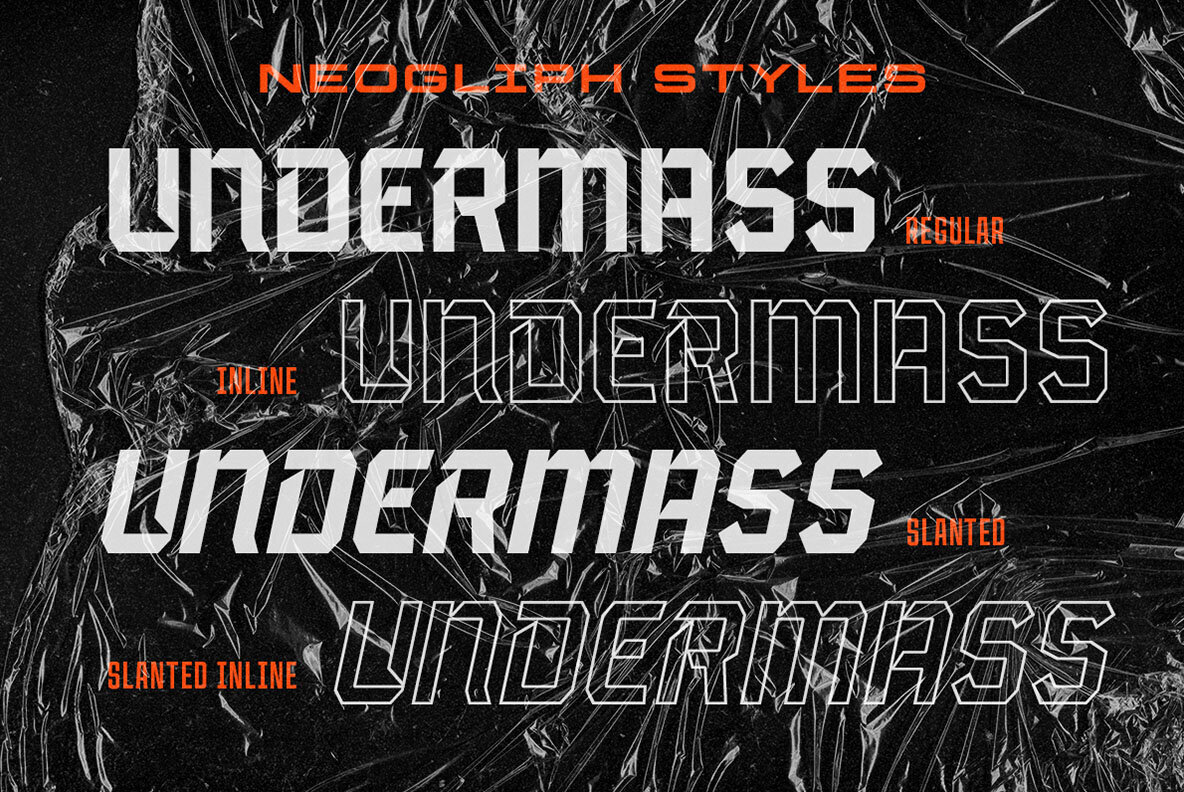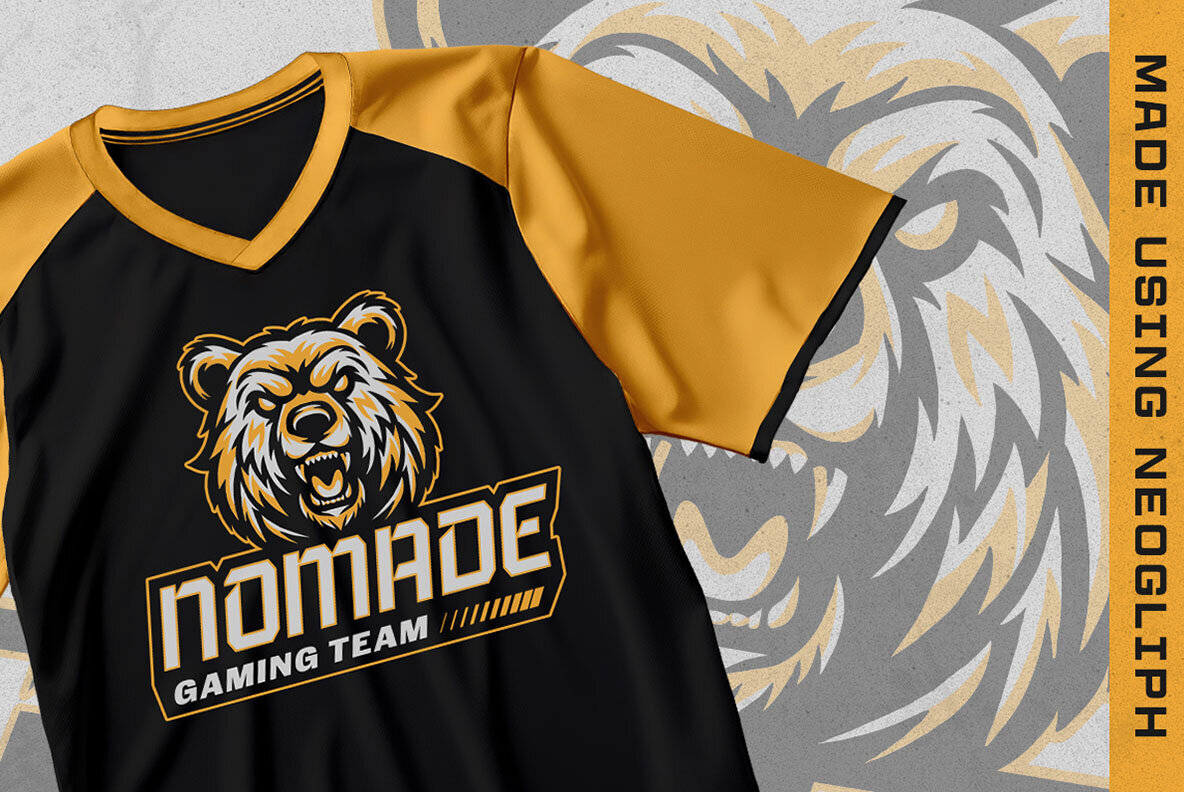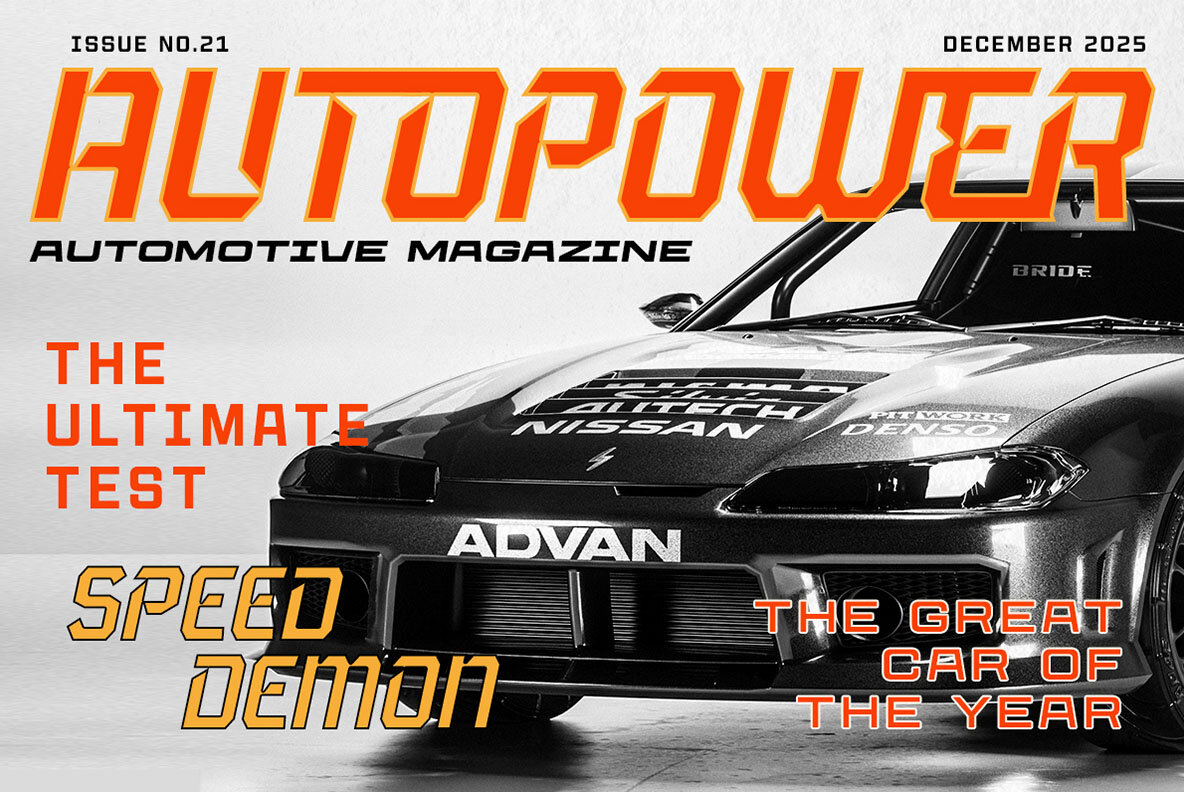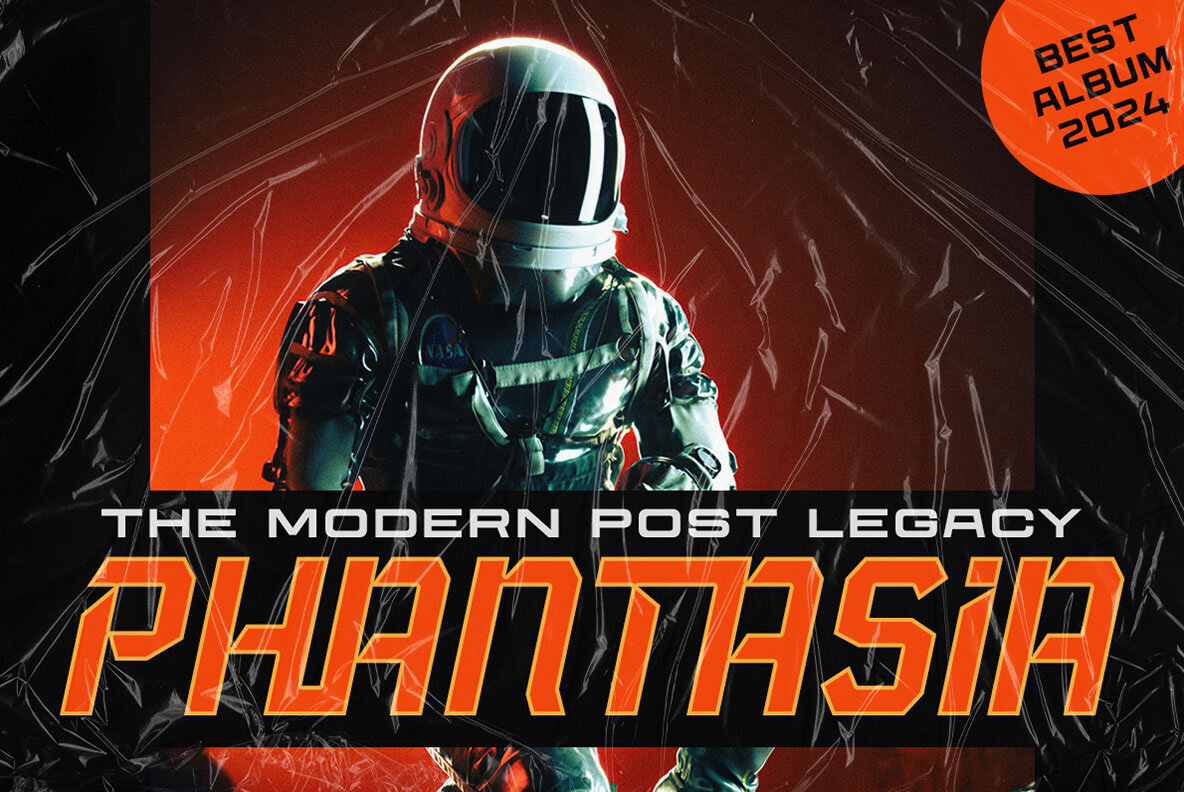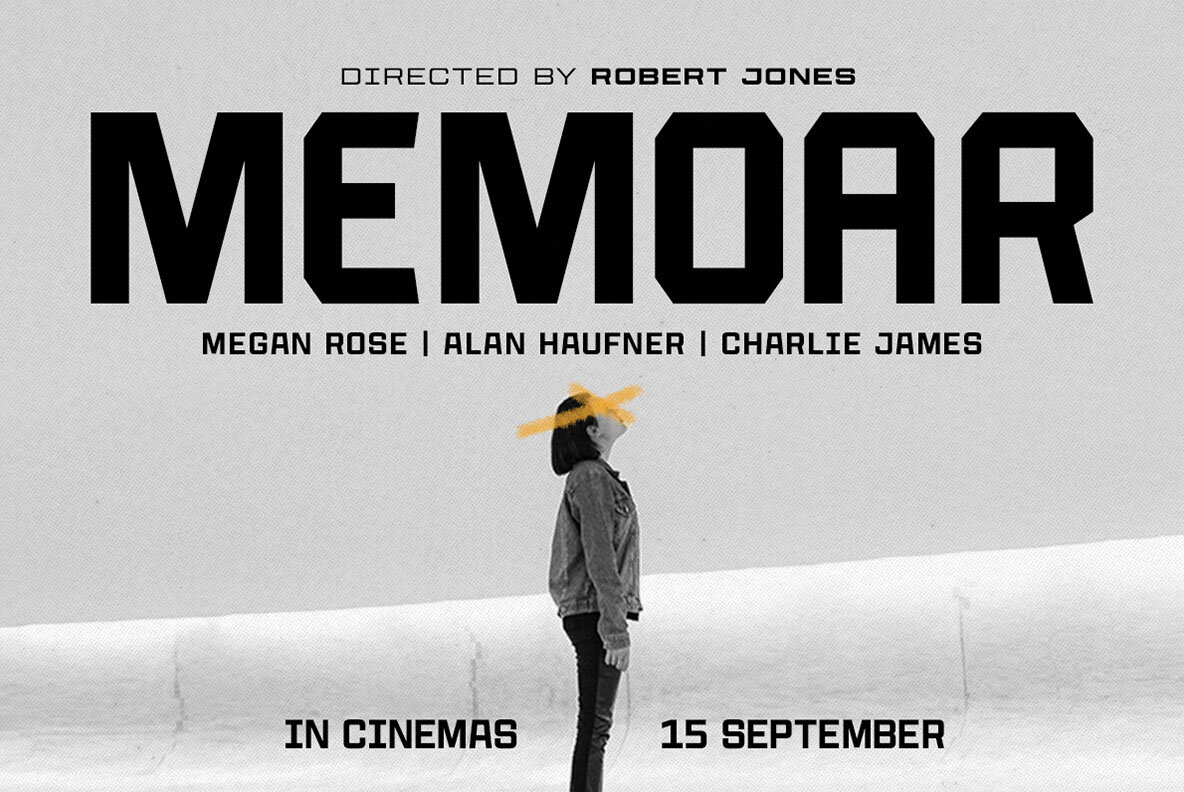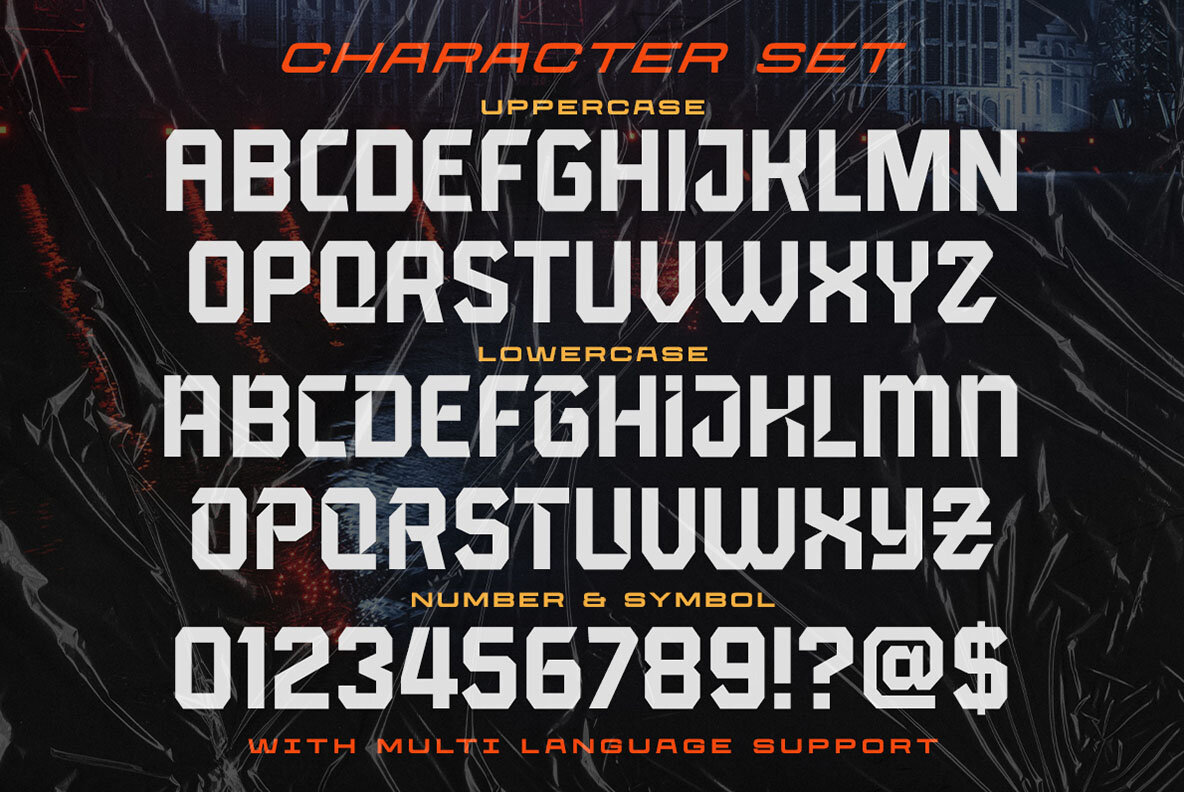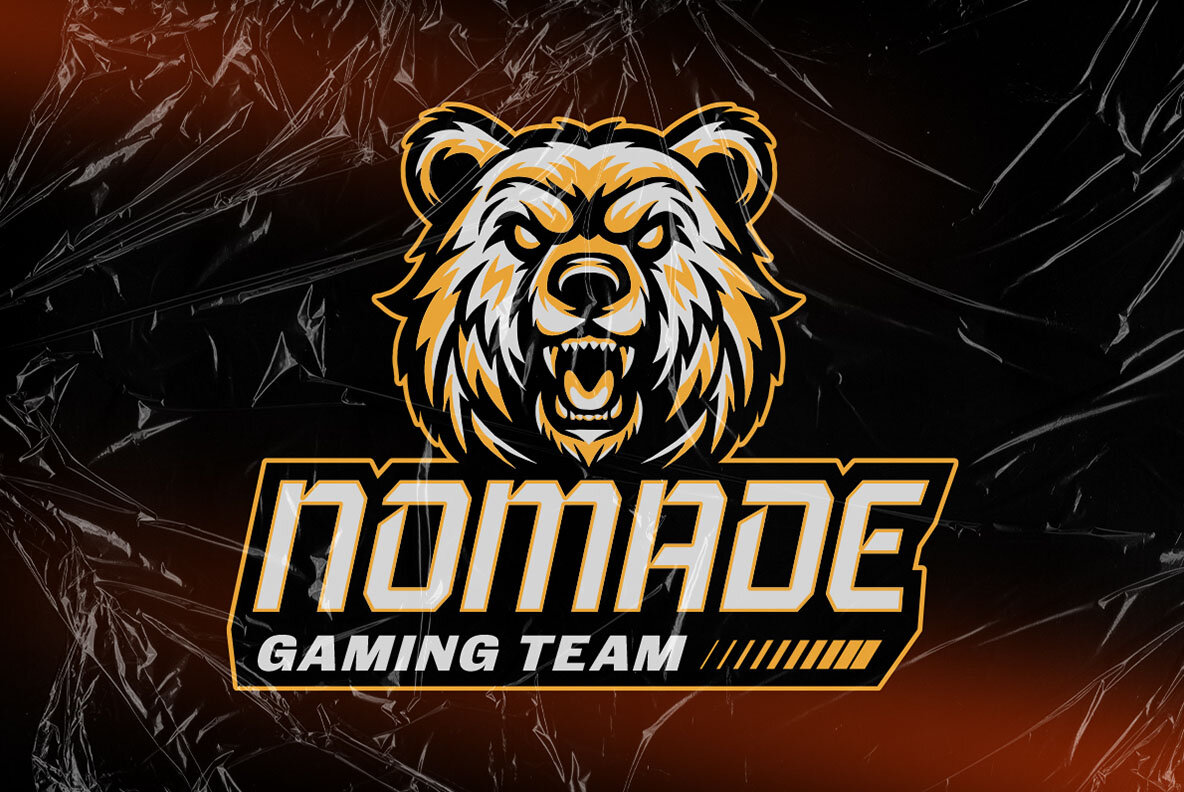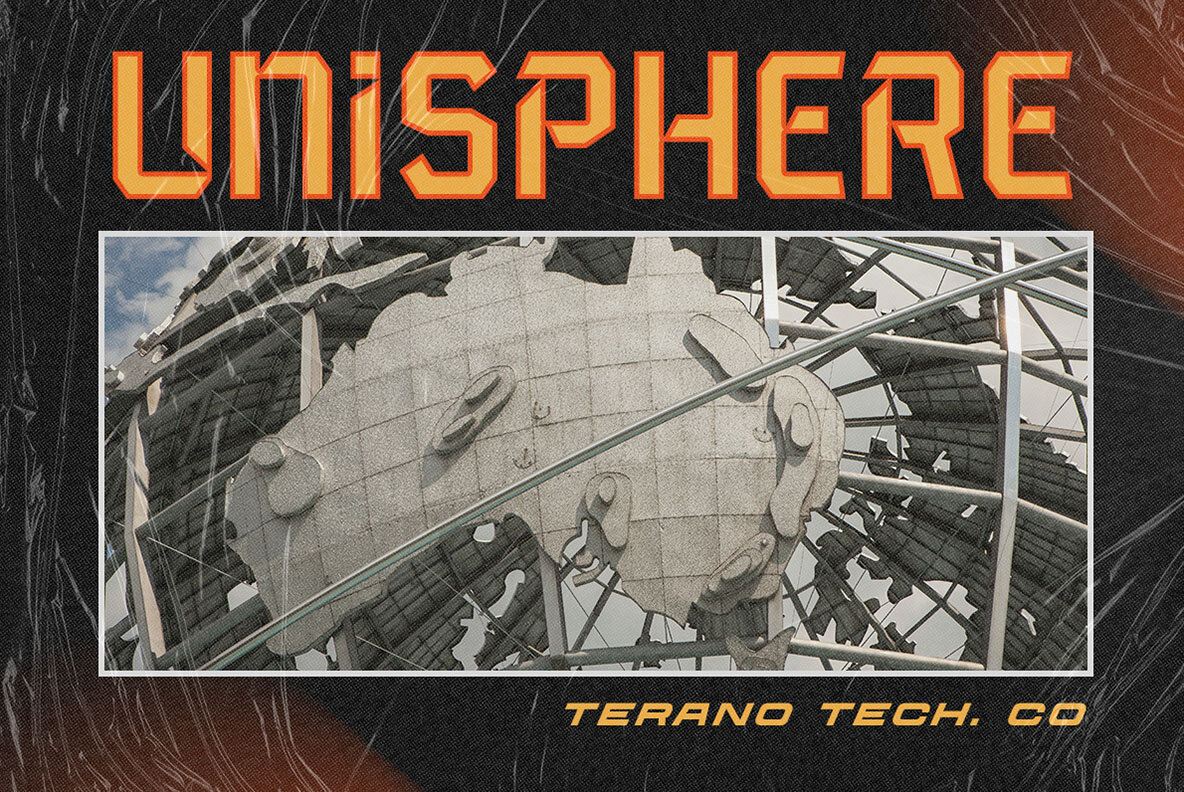
Neogliph Font
Neogliph by Letterhend Studio is the ultimate blend of modernity and cutting-edge design. Its dynamic and futuristic look conveys a sense of precision and high performance. Offered in Regular, Slanted, and Inline styles, Neogliph makes your text a true icon of progress and futuristic vision. This font is perfectly made to be applied especially in logos, and other formal forms such as invitations, labels, magazines, books, greeting/wedding cards, packaging, fashion, make-up, stationery, novels, or any type of advertising purpose. We highly recommend using a program that supports OpenType features and Glyphs panels like many of Adobe apps and Corel Draw, so you can see and access all Glyph variations.Neogliph by Letterhend Studio: A Futuristic Typeface for Modern Designs